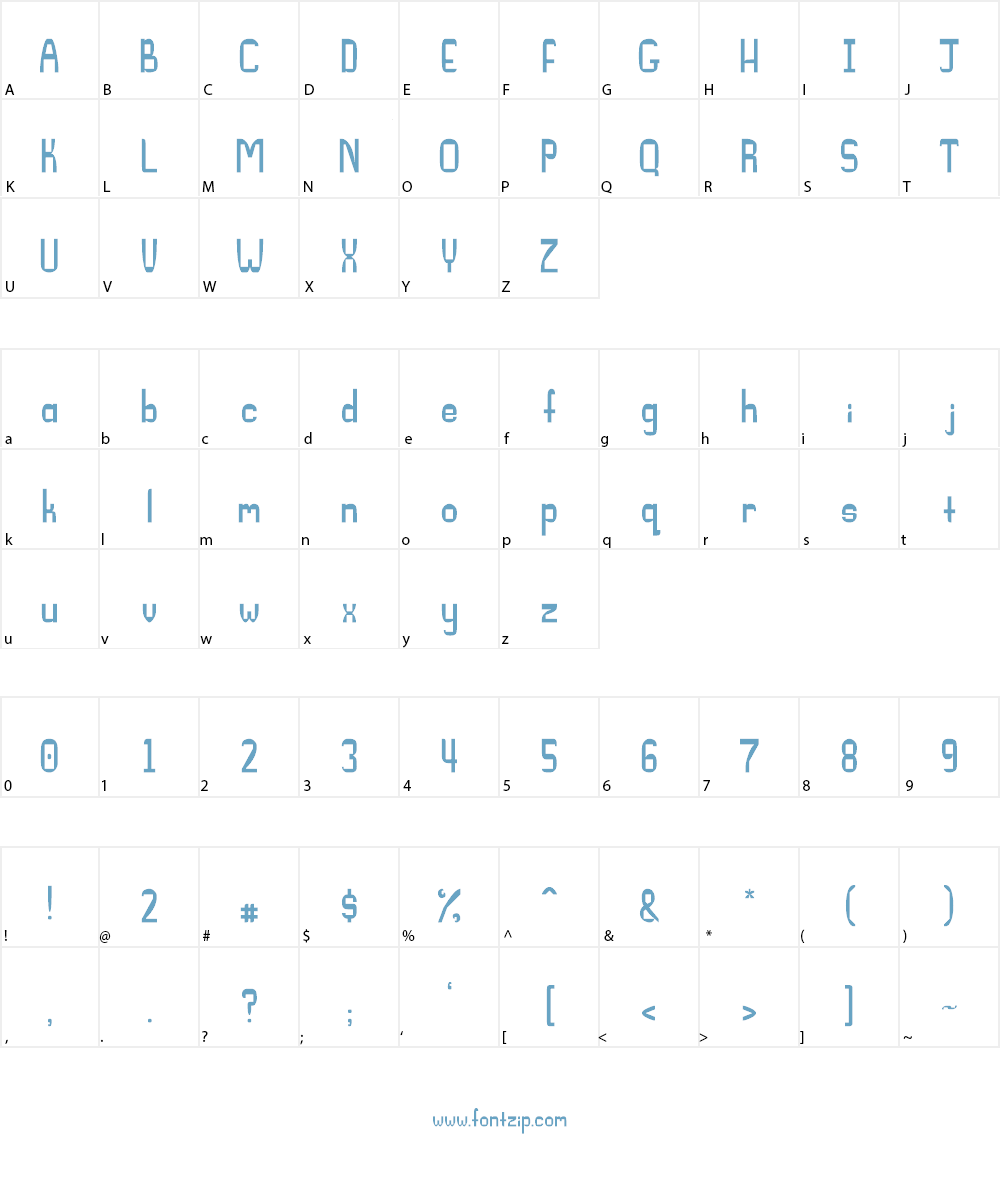
Simple rules gave rise to this font- convex sides may be curved, and concave ones may only be square, but I daresay it turned out well. Adds a fashionable touch of whimsy to your titles without seeming informal.
Supports some extended characters.